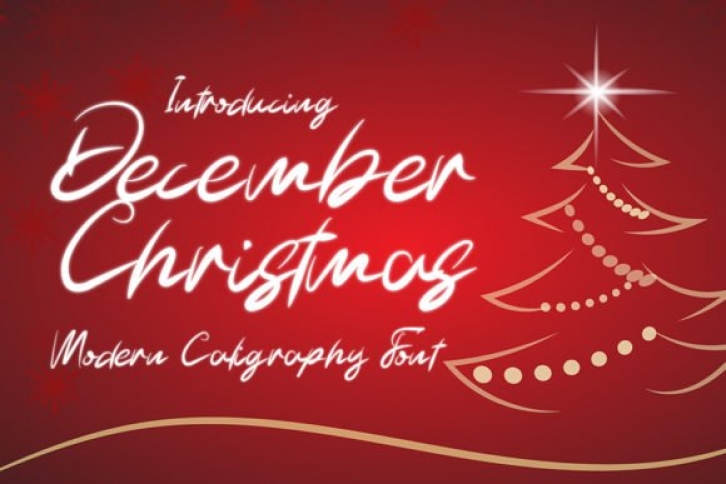
December Christmas is a sweet and friendly handwritten font. Its natural and unique style makes it incredibly fitting for a large pool of designs. The only limit is your imagination!